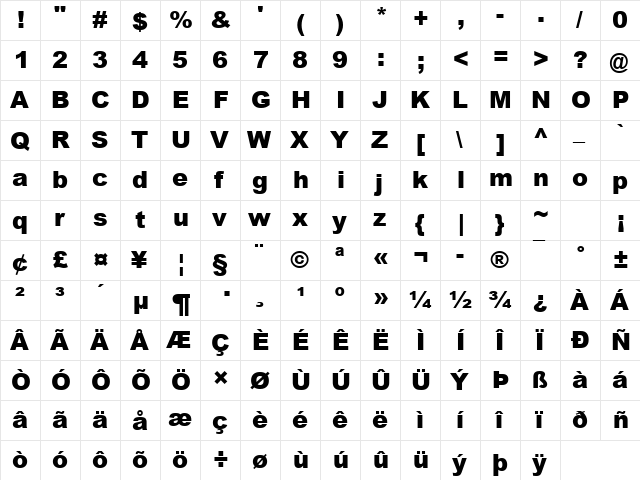
Arial Black Regular
| Foundry | Monotype Typography, Inc. |
| Designer | Robin Nicholas, Patricia Saunders |
Design Context for Arial Black Typeface
Arial Black is a composed and adaptable typeface that performs quietly and consistently across a wide range of design contexts.